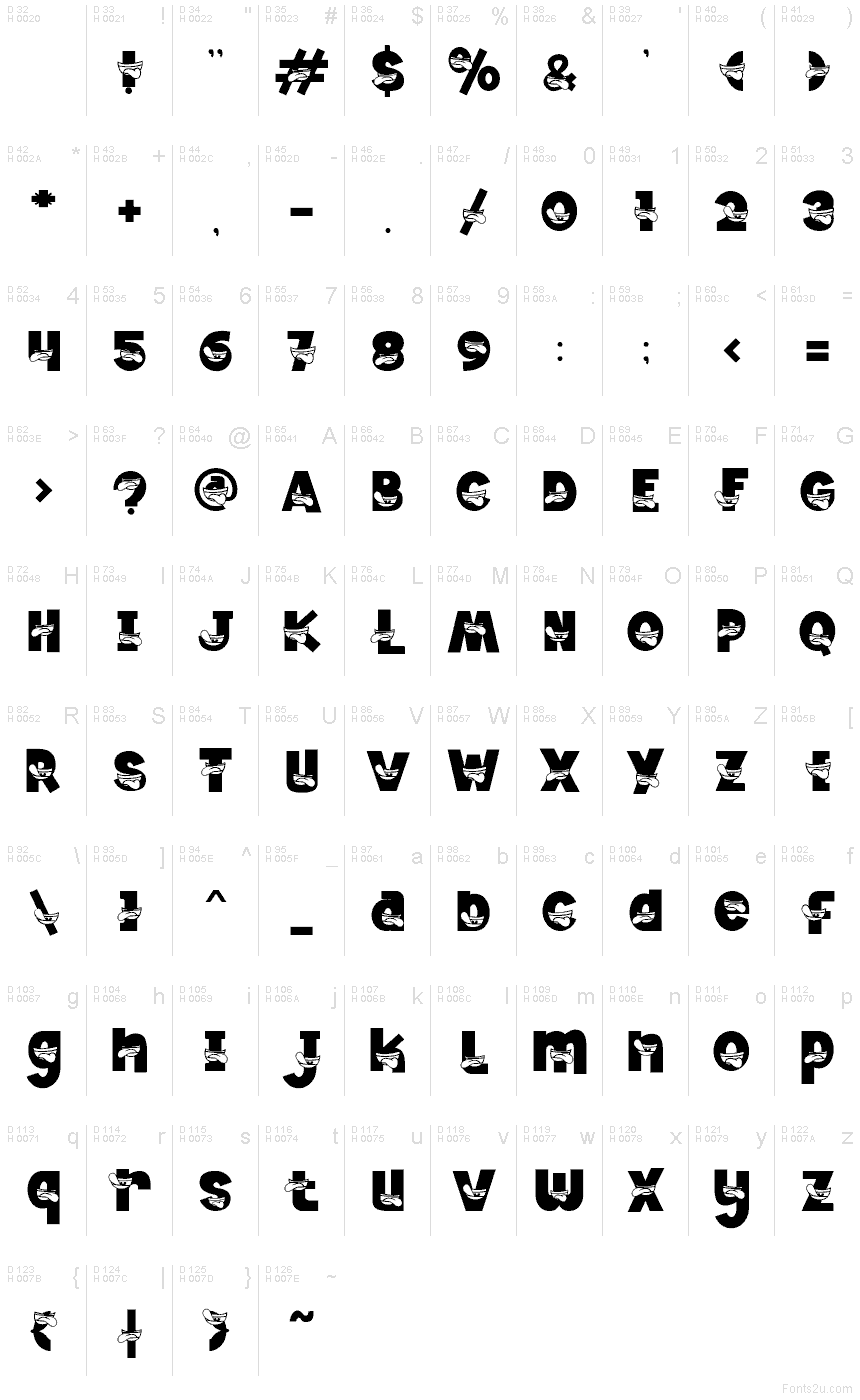
Jester Jumble Laugh
Jester Jumble Laugh font was designed by PutraCetol Studio as a fun and cartoonish typeface full of character. The bold display font is irregular and playful which gives it the humorous feel to fit its name. Each letter was carefully structured with rounded ends and shaped outwards.
Use this free comical font in comics, posters, books, cartoons, coloring pages or children’s magazines. Other applications that are also suitable include branding for children’s toys stores, school supplies, kid’s clothing shops or candy manufacturers. Additionally use it for personal branding or logos too!